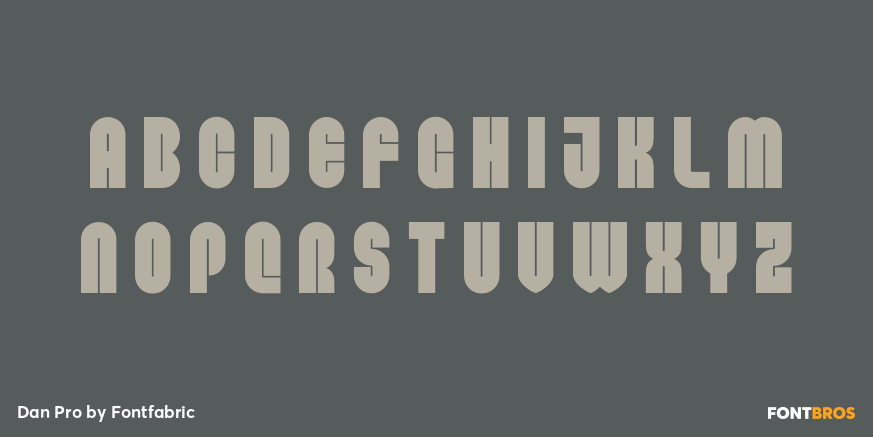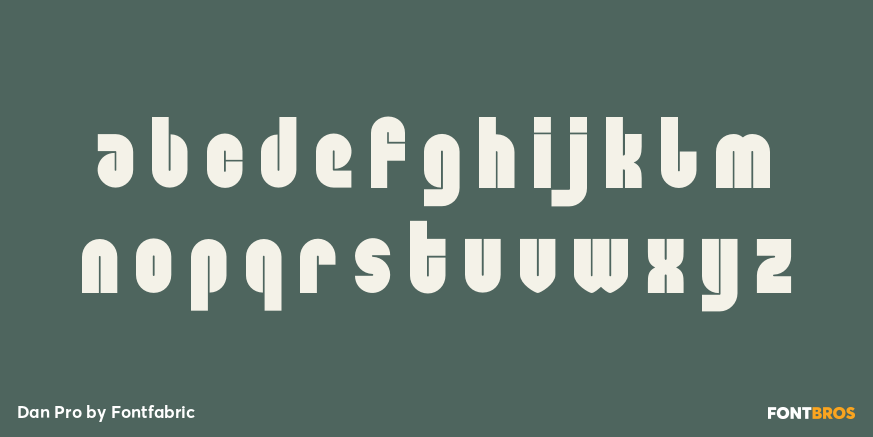
Dan Pro
Font Family by Fontfabric
Dan Pro is a custom sans font which is applicable for any type of graphic design - web, print, motion graphics, and perfect for t-shirts and other items.